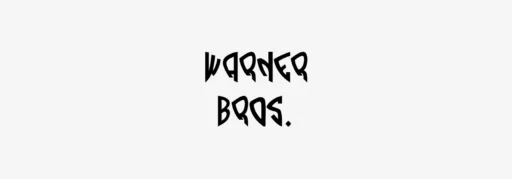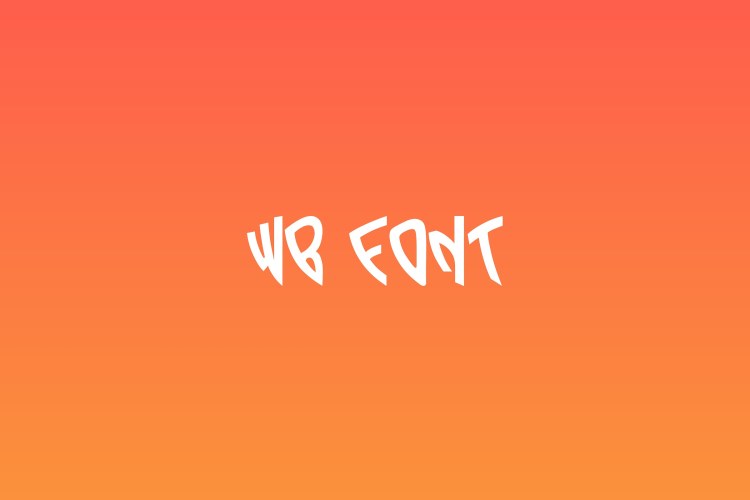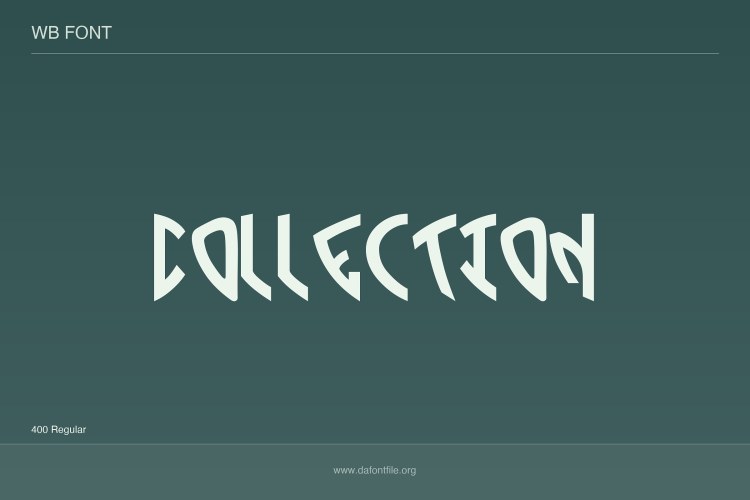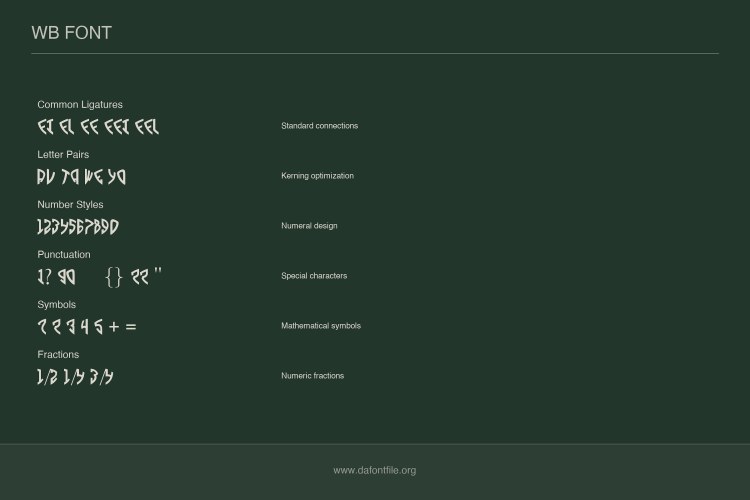
Warner Bros. Font
Warner Bros Font delivers bold display lettering inspired by the studio’s iconic logo. It’s clean, striking shapes capture the spirit of classic cinema and entertainment branding. Use it in posters, titles, and creative projects to add a touch of Hollywood heritage to your designs.
Warner Bros. Font is a Display Fonts font that brings a professional and versatile look to your projects. Warner Bros Font delivers bold display lettering inspired by the studio’s iconic logo.